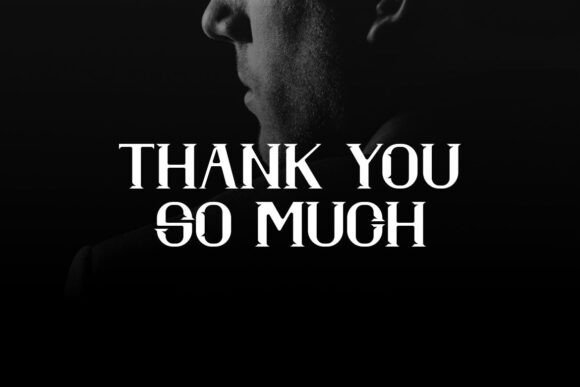
Introducing Danzen Font: The Ultimate Bold, Futuristic Serif Display Font
In the world of typography, fonts play a crucial role in conveying the tone and personality of a brand, product, or message. For designers and crafters looking for a font that exudes confidence, sophistication, and a touch of futurism, Danzen Font is an excellent choice. This bold, futuristic serif display font seamlessly blends classical structure with sci-fi aesthetics, making it perfect for modern branding, high-tech posters, and editorial layouts.
Design Characteristics of Danzen Font
Danzen Font boasts sharp serifs and symmetrical strokes that give it a confident, masculine presence. Its unique design elements make it stand out from traditional serif fonts, while its classical structure ensures a level of sophistication and elegance. The font’s futuristic feel is achieved through its sleek lines, geometric shapes, and a hint of industrialism.
One of the key features of Danzen Font is its versatility. It can be used in a variety of contexts, from digital media to print materials. Whether you’re designing a logo, creating a poster, or crafting an editorial layout, Danzen Font is sure to make a statement.
Key Benefits of Using Danzen Font
- High Impact: Danzen Font is designed to deliver high impact with a stylish, minimal touch. Its bold design ensures that your message gets noticed, while its sleek lines prevent it from feeling overwhelming.
- Confidence and Sophistication: The font’s confident, masculine presence makes it perfect for brands and products that want to exude a sense of authority and sophistication.
- Versatility: Danzen Font can be used in a variety of contexts, from digital media to print materials, making it a valuable addition to any designer’s toolkit.
- Uniqueness: Danzen Font’s blend of classical structure and sci-fi aesthetics makes it a unique and distinctive font that sets it apart from more traditional serif fonts.
Use Cases for Danzen Font
Danzen Font is perfect for a variety of design projects, including:
- Modern Branding: Use Danzen Font to create a bold, confident brand identity that exudes sophistication and authority.
- High-Tech Posters: Danzen Font’s futuristic feel makes it perfect for high-tech posters, flyers, and brochures.
- Editorial Layouts: Use Danzen Font to add a touch of sophistication and elegance to editorial layouts, such as magazines, newspapers, and books.
- Logo Design: Danzen Font’s unique design elements make it an excellent choice for logo design, particularly for brands that want to stand out from the crowd.
Tips for Using Danzen Font Effectively
To get the most out of Danzen Font, here are a few tips to keep in mind:
- Use it boldly: Danzen Font is designed to make a statement, so don’t be afraid to use it boldly and prominently in your design.
- Experiment with colors: Danzen Font looks great in a variety of colors, so experiment with different color schemes to find the one that works best for your design.
- Pair it with contrasting fonts: Danzen Font’s bold design makes it perfect for pairing with contrasting fonts that add a touch of elegance and sophistication.
| Author | Kenrichi |
In conclusion, Danzen Font is a bold, futuristic serif display font that is perfect for designers and crafters looking for a font that exudes confidence, sophistication, and a touch of futurism. Its unique design elements, versatility, and high-impact design make it an excellent choice for a variety of design projects. Whether you’re designing a logo, creating a poster, or crafting an editorial layout, Danzen Font is sure to deliver a stylish, minimal touch that gets noticed.